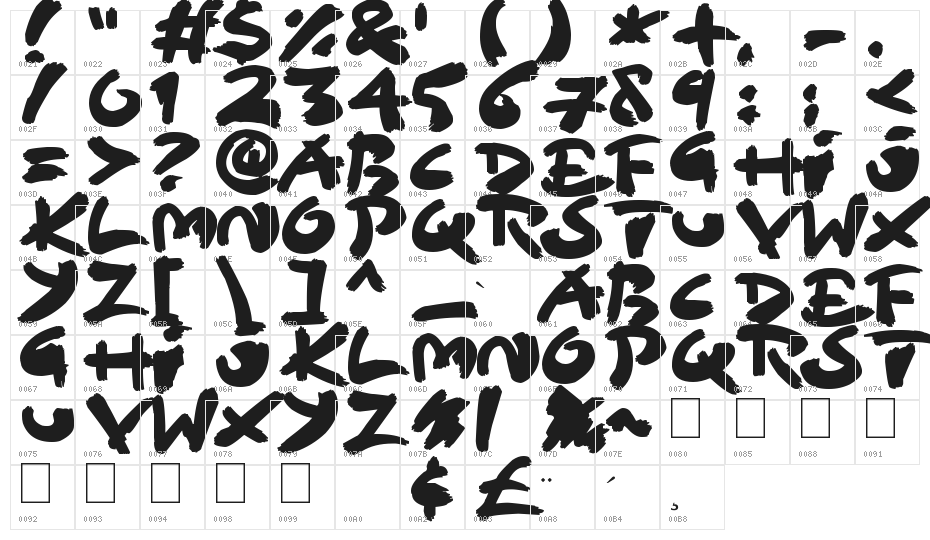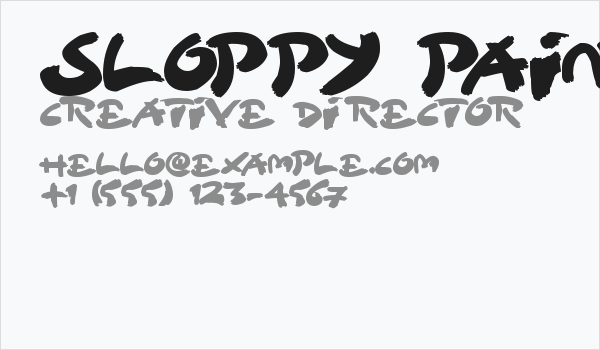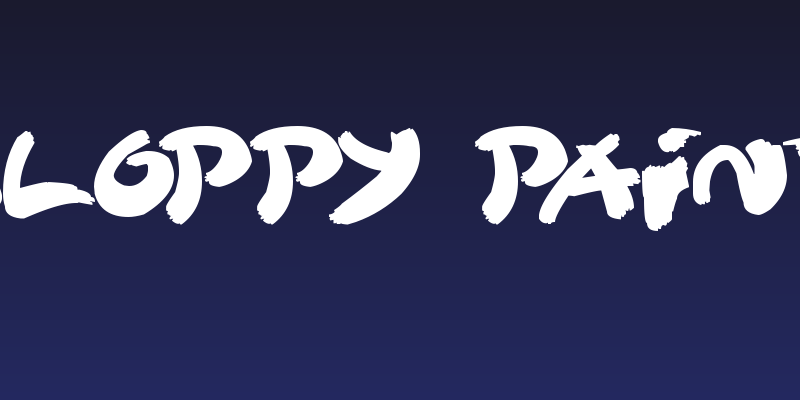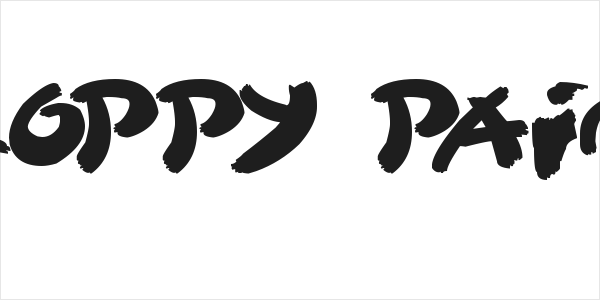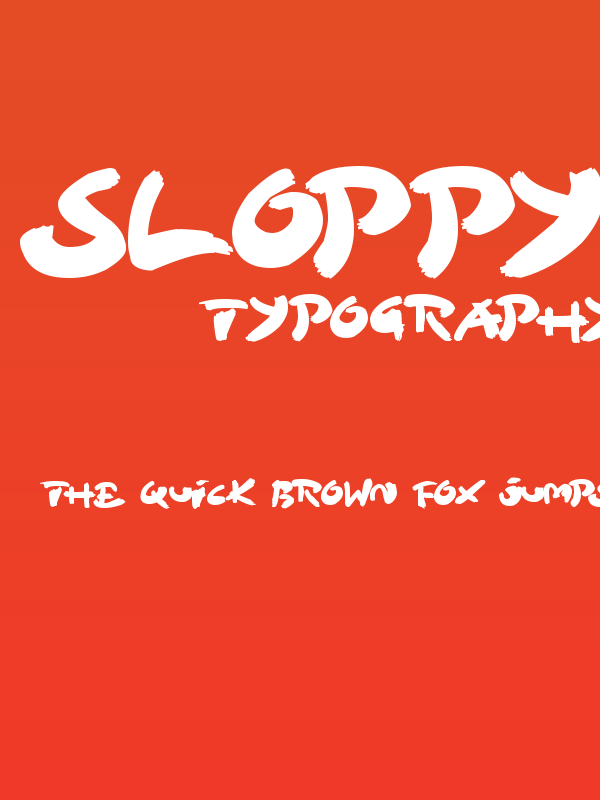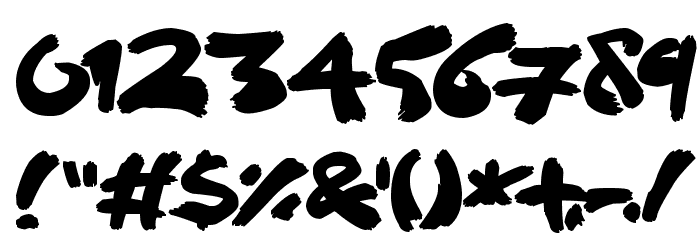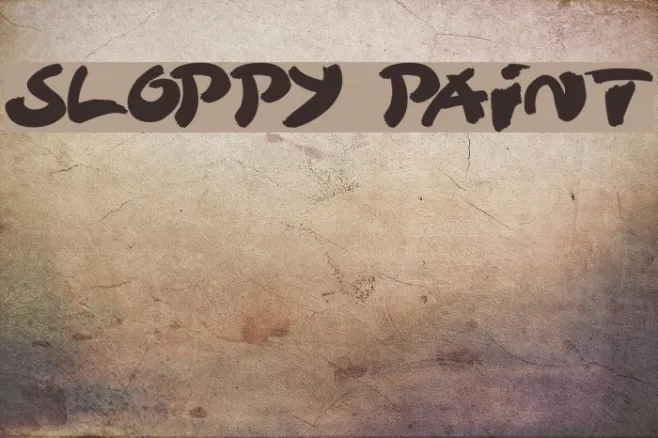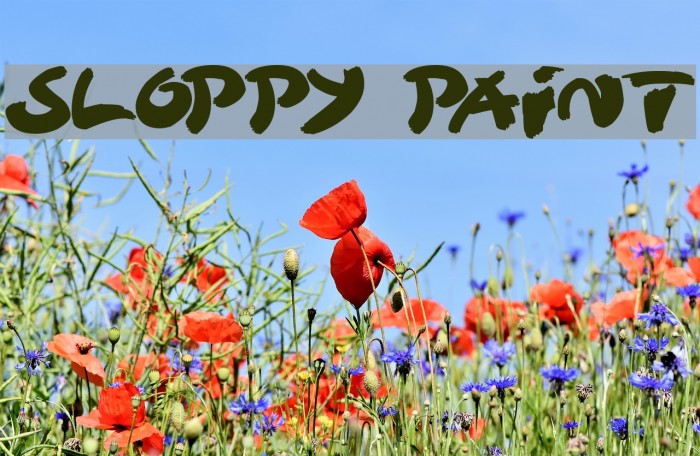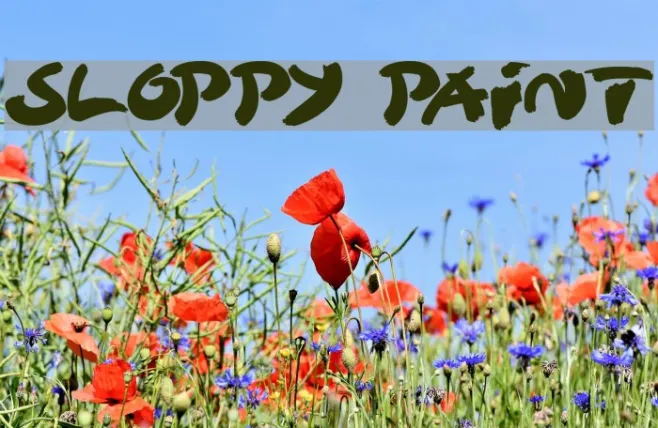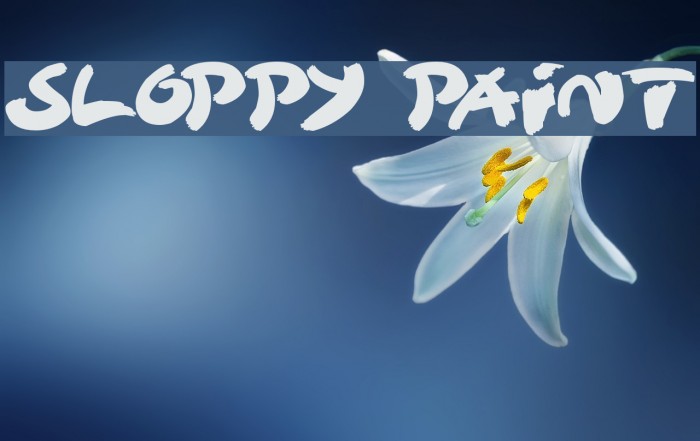
Sloppy Paint Font
Sloppy Paint Description
This font exudes a bold, expressive style reminiscent of brush strokes, giving it a dynamic and energetic appearance. The characters are crafted with a sense of movement and fluidity, featuring irregular edges and varying stroke thicknesses that mimic the look of hand-painted lettering. The uppercase and lowercase letters maintain a consistent style, with a playful yet assertive presence. Numbers and special characters are equally bold, ensuring a cohesive look across all text elements. This font's unique aesthetic makes it stand out, offering a creative flair that is both artistic and impactful.
| Overall Style | Artistic, Expressive, Dynamic |
| Use Case | Headlines, Logos, Posters, Artistic Branding |
| Proposed Projects | Ideal for projects that require a creative and artistic touch, such as posters, album covers, branding for artistic ventures, or any design needing a bold statement. |